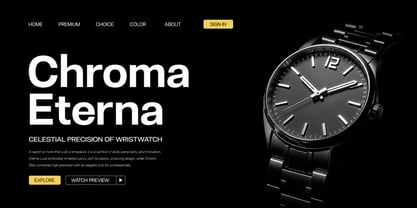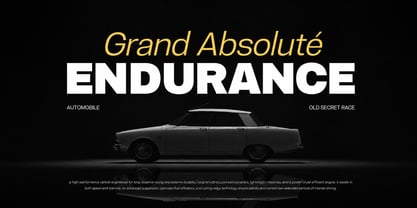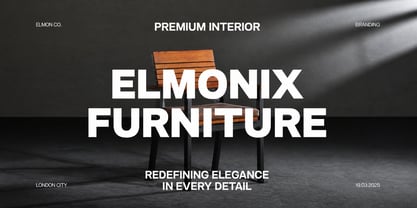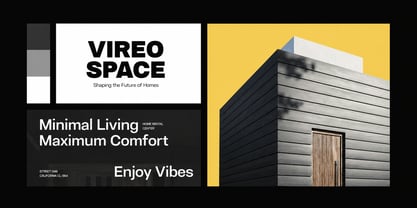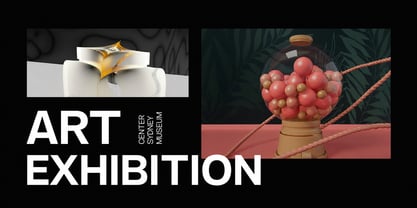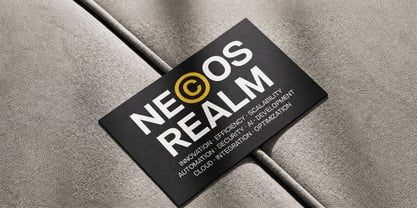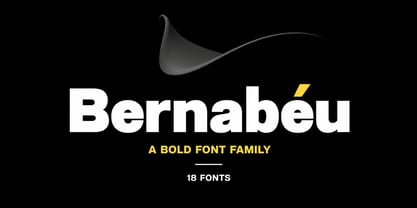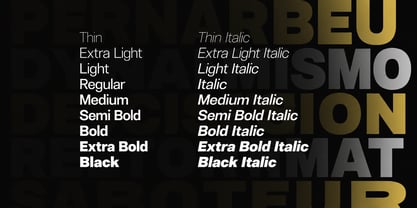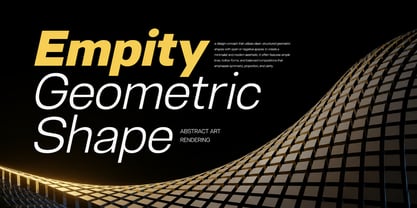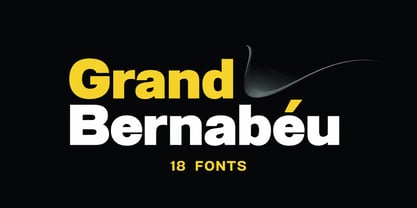
Grand Bernabeu
The Grand Bernabeu Font Family was designed by Faizul Muna and published by Unitype Studio. Grand Bernabeu contains 18 styles and family package options. More about this family
Bernabeu – Modern Neo-Grotesk Sans Serif Font Family
Bernabeu is a bold and modern neo-grotesk sans serif typeface designed to create a strong visual statement. Inspired by the timeless typography of the 20th century, Bernabeu features clean geometric letterforms, sharp details, a high x-height, and minimal stroke contrast. The result is a contemporary typeface that combines clarity, structure, and powerful visual presence.
With its clean proportions and modern geometric character, Bernabeu delivers a professional and confident appearance across a wide range of design applications. Its carefully constructed letterforms provide excellent visual impact, making it especially effective when typography needs to become a central element of the composition.
Bernabeu includes 18 versatile styles, featuring 9 font weights with matching italics. This extensive range gives designers the flexibility to create clear typographic hierarchies, from refined and subtle layouts to bold and powerful headlines. Its balanced kerning and spacing help maintain a polished appearance across different sizes and formats.
Inspired by modern editorial typography, contemporary branding, architecture, signage, and urban visual systems, Bernabeu works beautifully across both digital and print projects. Its strong character makes it particularly effective for headlines, logos, posters, advertisements, packaging, magazines, websites, and UI/UX designs.
Bernabeu is primarily designed as a display and headline typeface, where its distinctive proportions and strong structure can truly shine. While it is not intended for long blocks of body text, it performs exceptionally well in large sizes where its geometric details, clean rhythm, and modern personality become more prominent.
Whether you are developing a brand identity, creating an editorial layout, designing signage, or building a bold digital campaign, Bernabeu provides a sophisticated and contemporary typographic foundation.
Key Features of Bernabeu Font
Modern Neo-Grotesk Style
A contemporary sans serif inspired by classic 20th-century neo-grotesk typography.
Bold Geometric Letterforms
Clean shapes, sharp details, and strong proportions create a distinctive visual identity.
18 Versatile Styles
Includes 9 font weights with matching italics for flexible typographic compositions.
High X-Height
Large lowercase proportions provide excellent visual presence and readability in display sizes.
Strong Display Character
Designed to create impactful headlines, titles, logos, posters, and other large-scale typography.
Multilingual Support
Includes extended glyph support for a wide range of international design projects.
Perfect For
Bernabeu sans serif font works beautifully for:
• Branding & Visual Identity
• Logo & Wordmark Design
• Editorial & Magazine Layouts
• Posters & Advertising
• Website Headers & UI/UX Design
• Signage & Wayfinding
• Packaging & Product Design
• Fashion & Lifestyle Branding
• Architecture & Urban Design
• Social Media Graphics
• Billboard & Large Display Typography
• Headlines & Titles
• Digital & Print Projects
• Bernabeu Thin
• Bernabeu Thin Italic
• Bernabeu Extra Light
• Bernabeu Extra Light Italic
• Bernabeu Light
• Bernabeu Light Italic
• Bernabeu Regular
• Bernabeu Regular Italic
• Bernabeu Medium
• Bernabeu Medium Italic
• Bernabeu Semi Bold
• Bernabeu Semi Bold Italic
• Bernabeu Bold
• Bernabeu Bold Italic
• Bernabeu Extra Bold
• Bernabeu Extra Bold Italic
• Bernabeu Black
• Bernabeu Black Italic
Why Choose Bernabeu?
Bernabeu is a powerful modern neo-grotesk sans serif font that combines geometric precision with a bold contemporary personality. Its extensive range of weights and italics gives designers the flexibility to create sophisticated typographic systems for branding, editorial, advertising, and digital design.
Whether you’re creating logos, posters, magazines, websites, packaging, signage, advertisements, or high-impact headlines, Bernabeu delivers clean, confident, and modern typography that stands out.